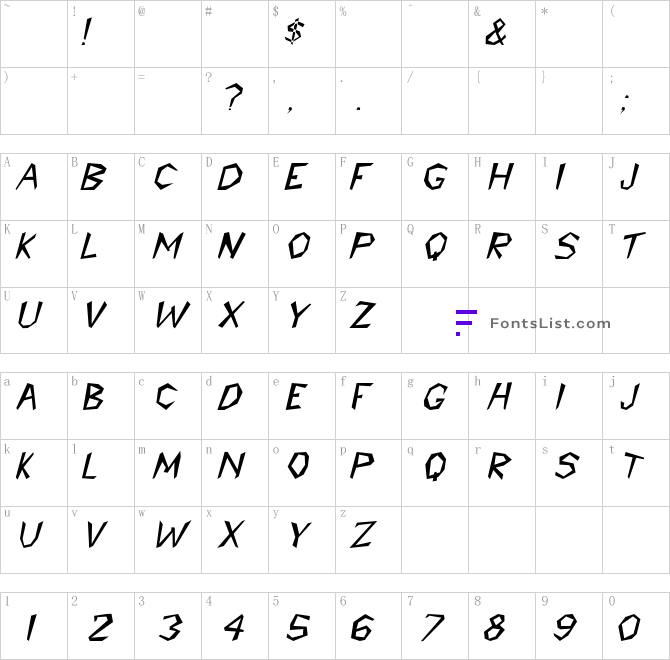
- Font Name:Andorra Italic
Andorra-Italic.ttf is a very beautiful artistic font, Andorra-Italic.ttf is widely used in the design and printing of various books and pictures,Andorra-Italic.ttf has a strong visual impact,Andorra-Italic.ttf is a commonly used font in newspapers, magazines and books, and is used in posters, e-commerce Poster design, store design, logo design, font design and other fields.Andorra-Italic.